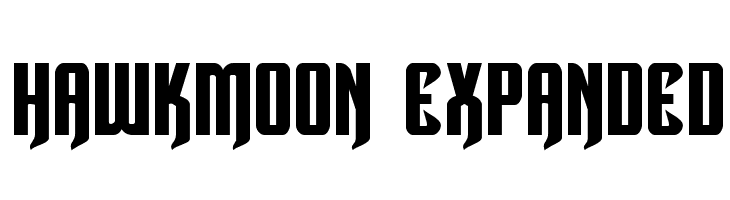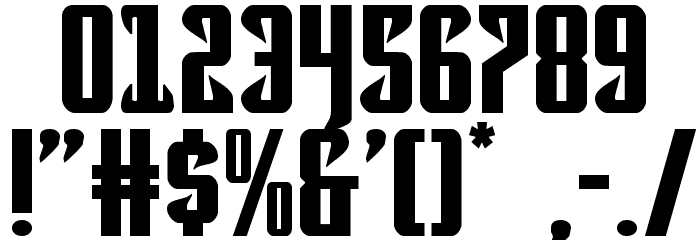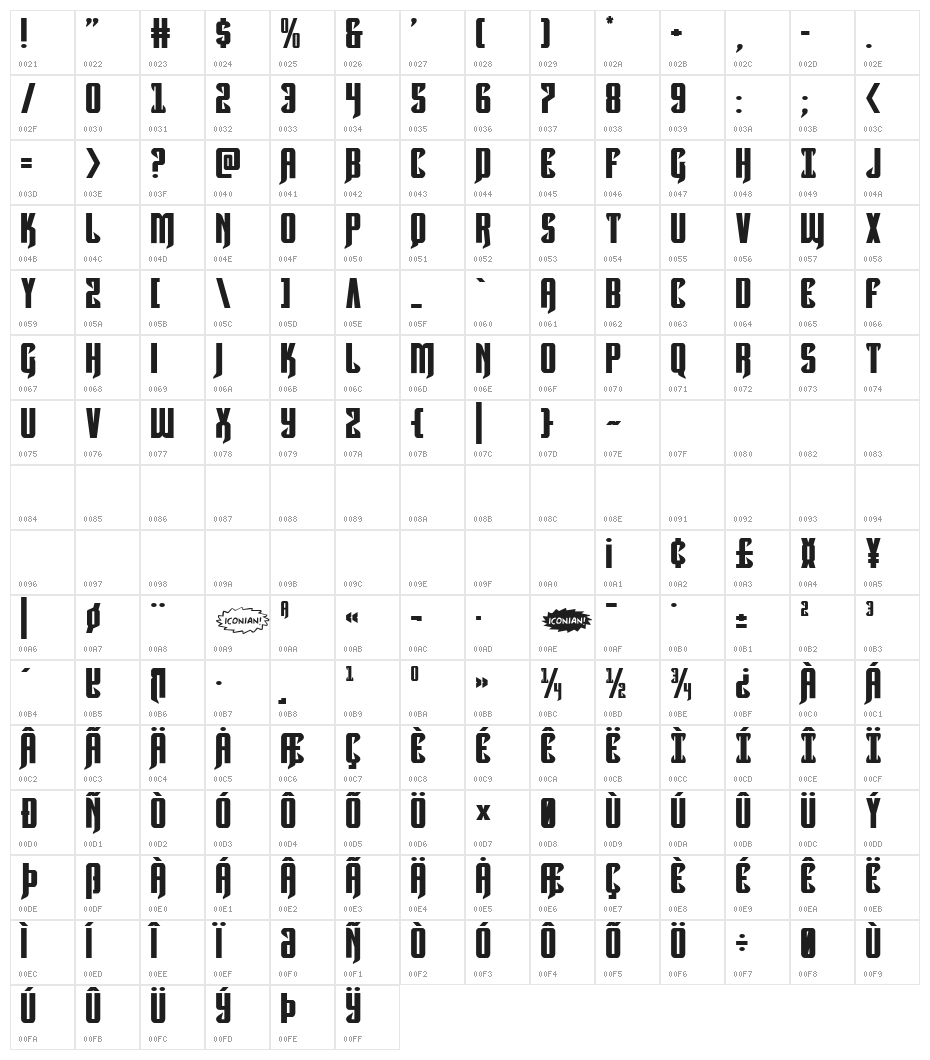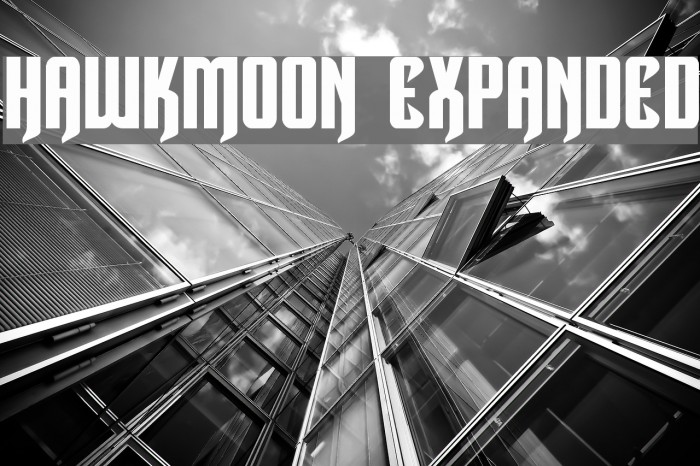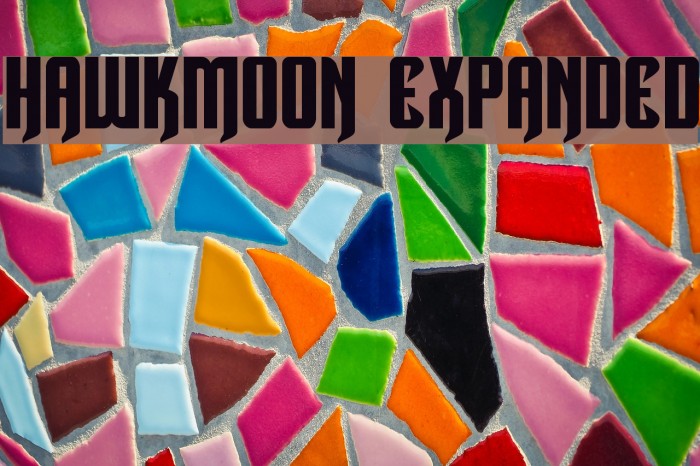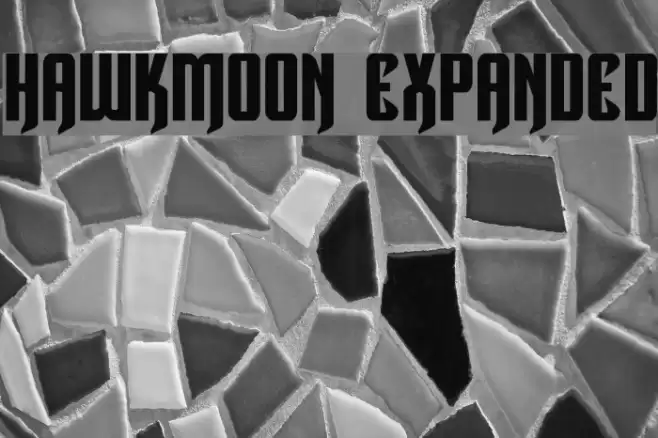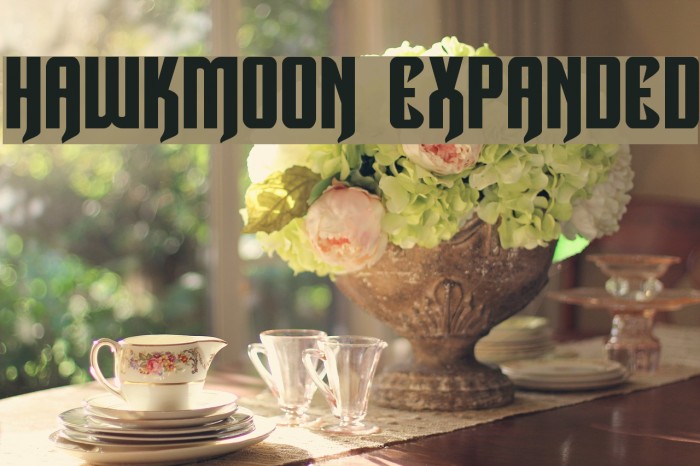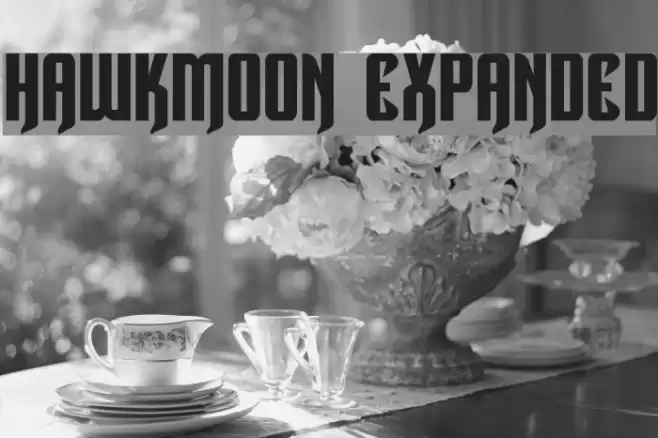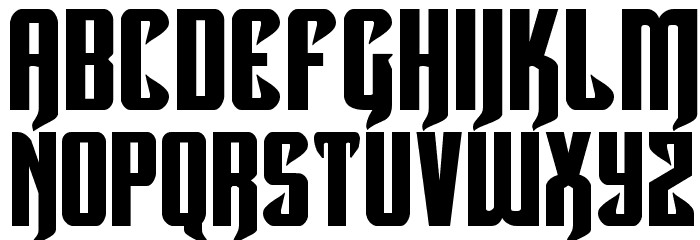
Hawkmoon Expanded Font
Hawkmoon Expanded Description
This font features a bold and striking design with a distinct Gothic influence. The characters are tall and narrow, with sharp angles and unique cutouts that give it a dramatic and edgy appearance. The uppercase letters are particularly prominent, showcasing a strong presence with their elongated forms. The numbers and special characters maintain the same bold style, ensuring consistency across all elements. This font is ideal for making a statement, with its high-impact design that demands attention.
| Overall Style | Gothic, Dramatic |
| Proposed Projects | Perfect for branding, posters, album covers, and any project requiring a bold, impactful typeface. |